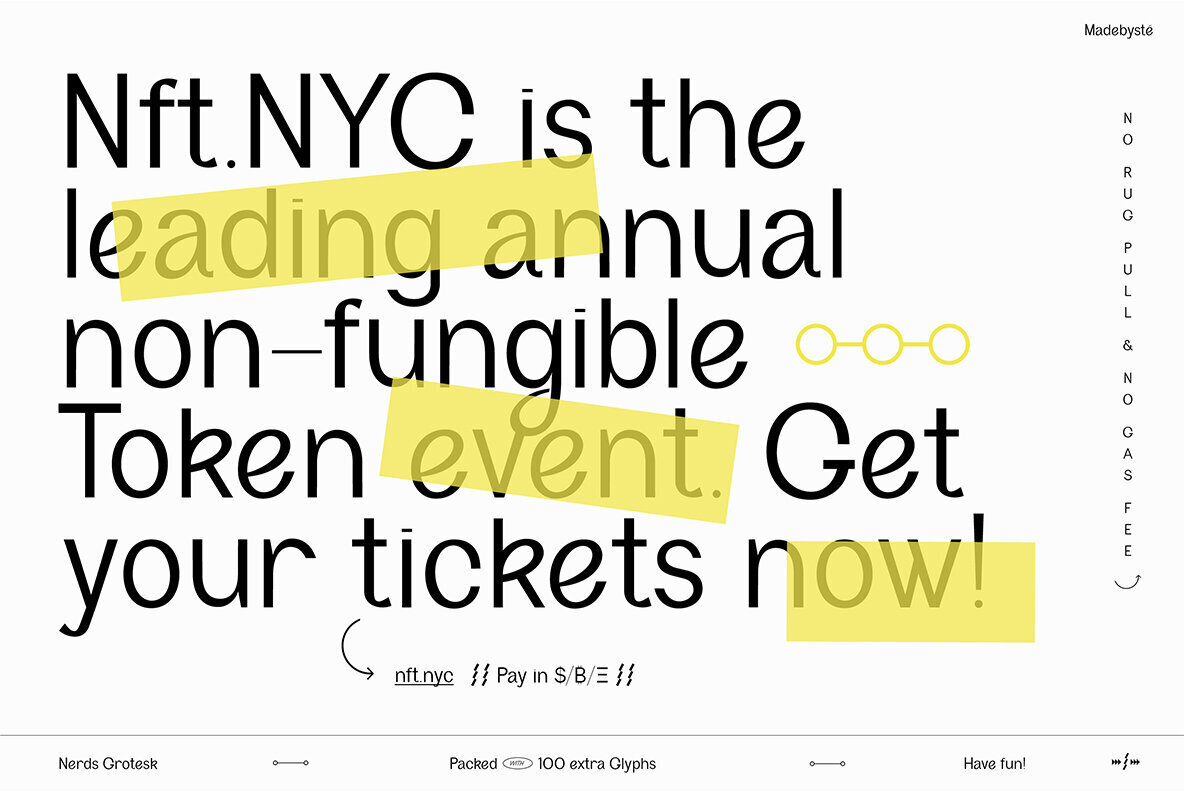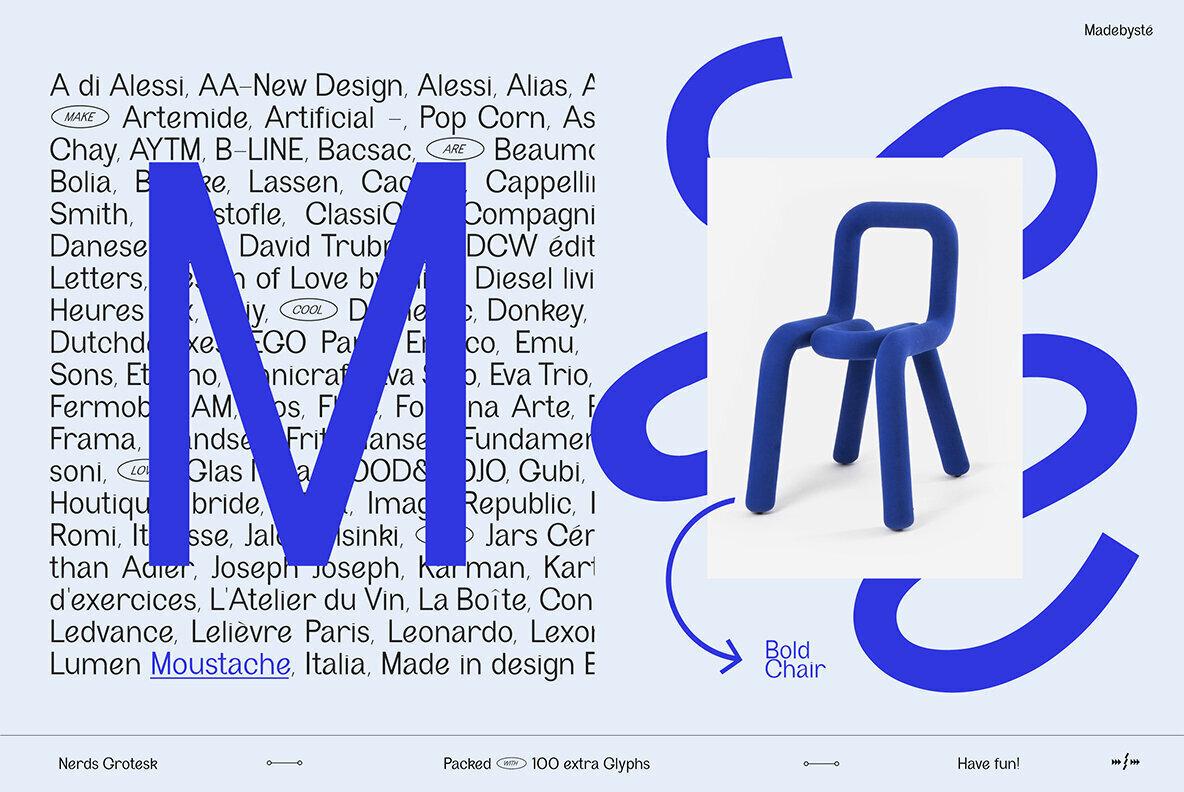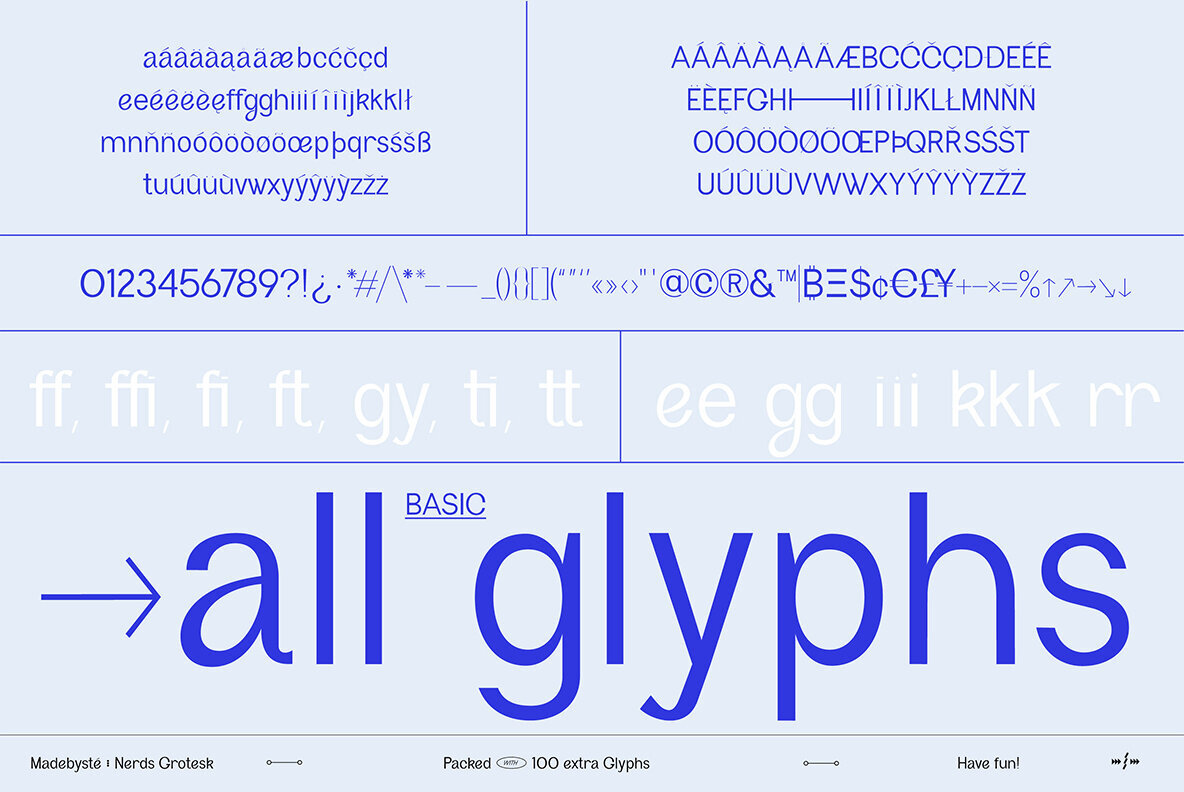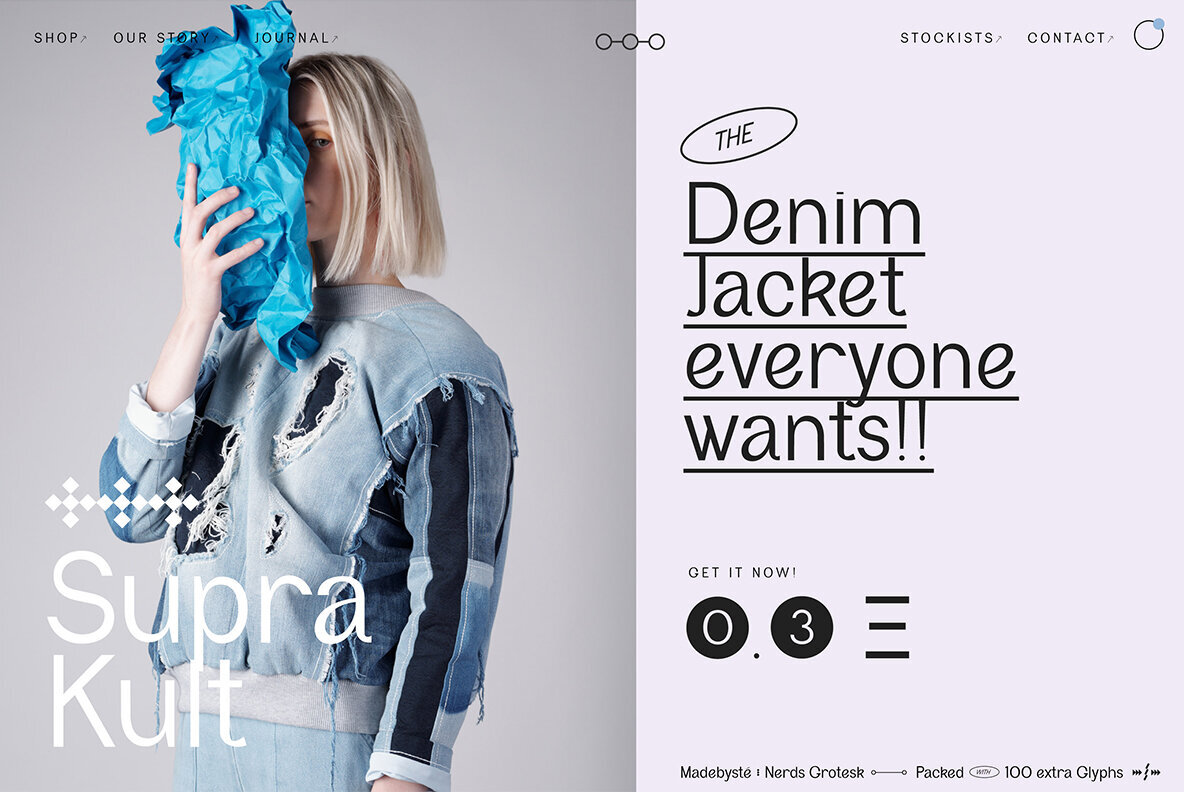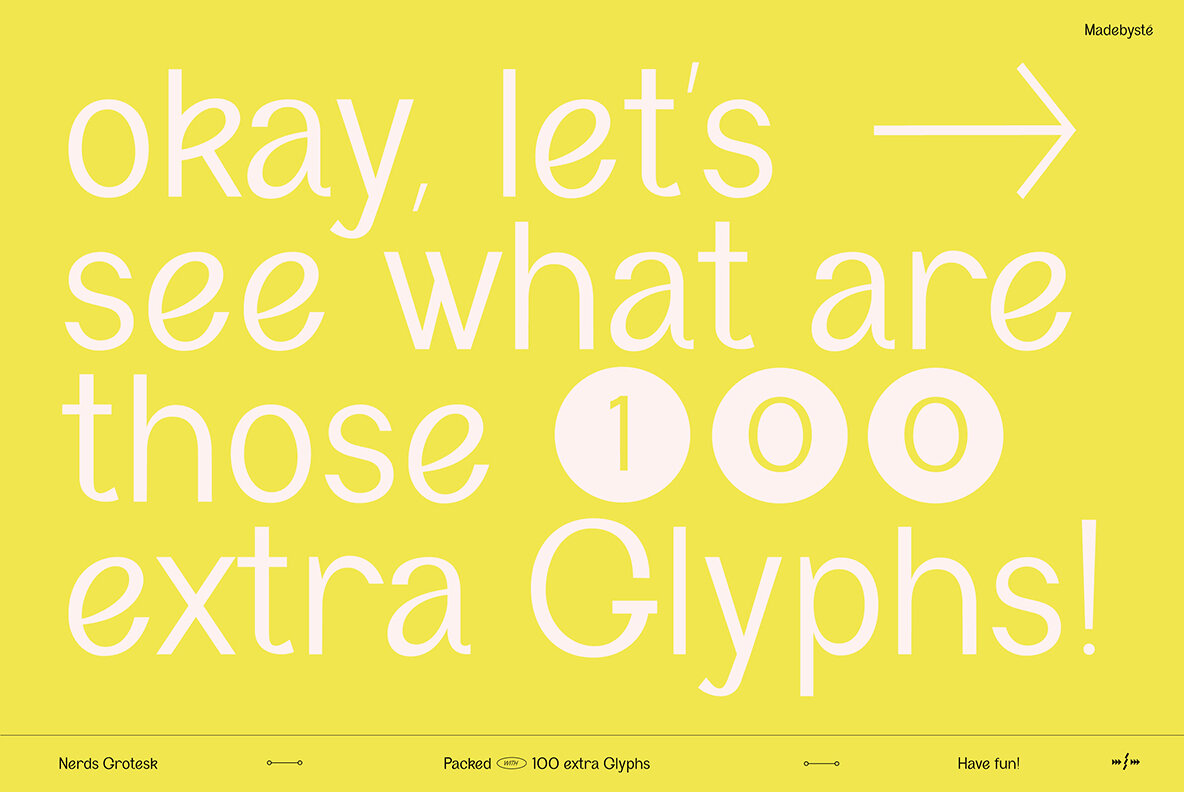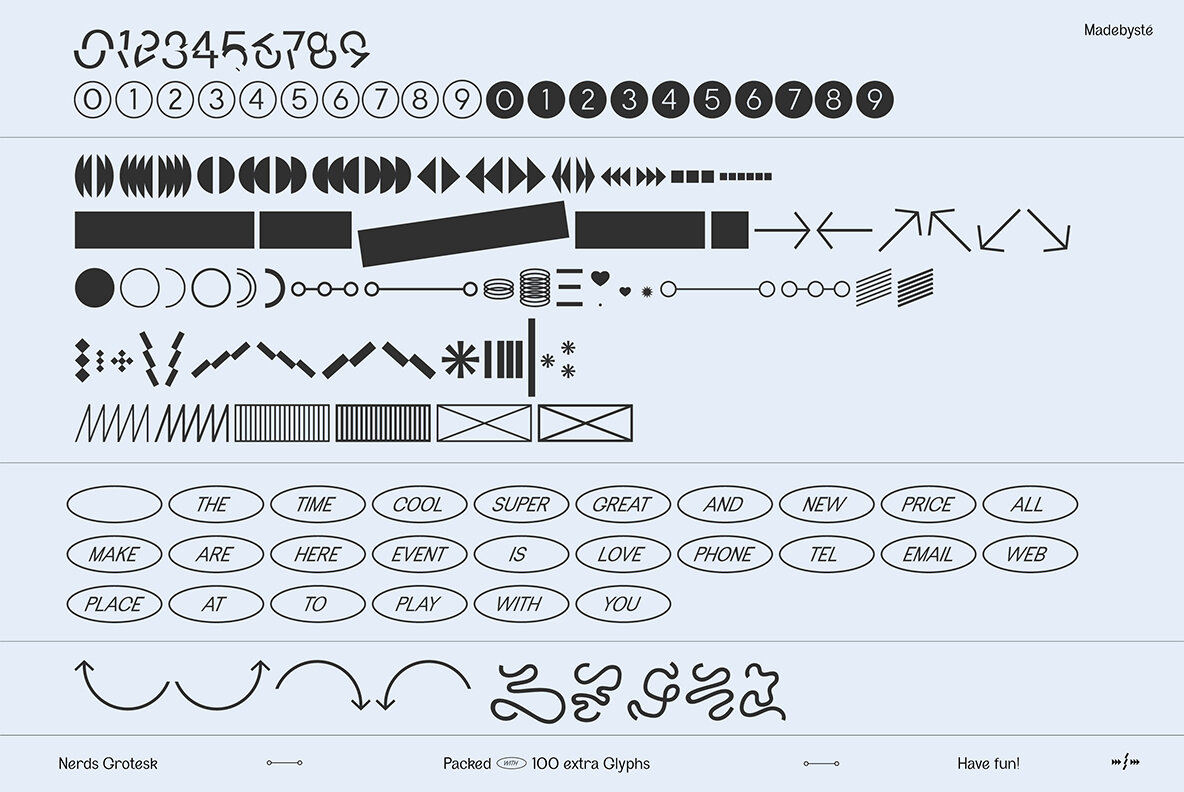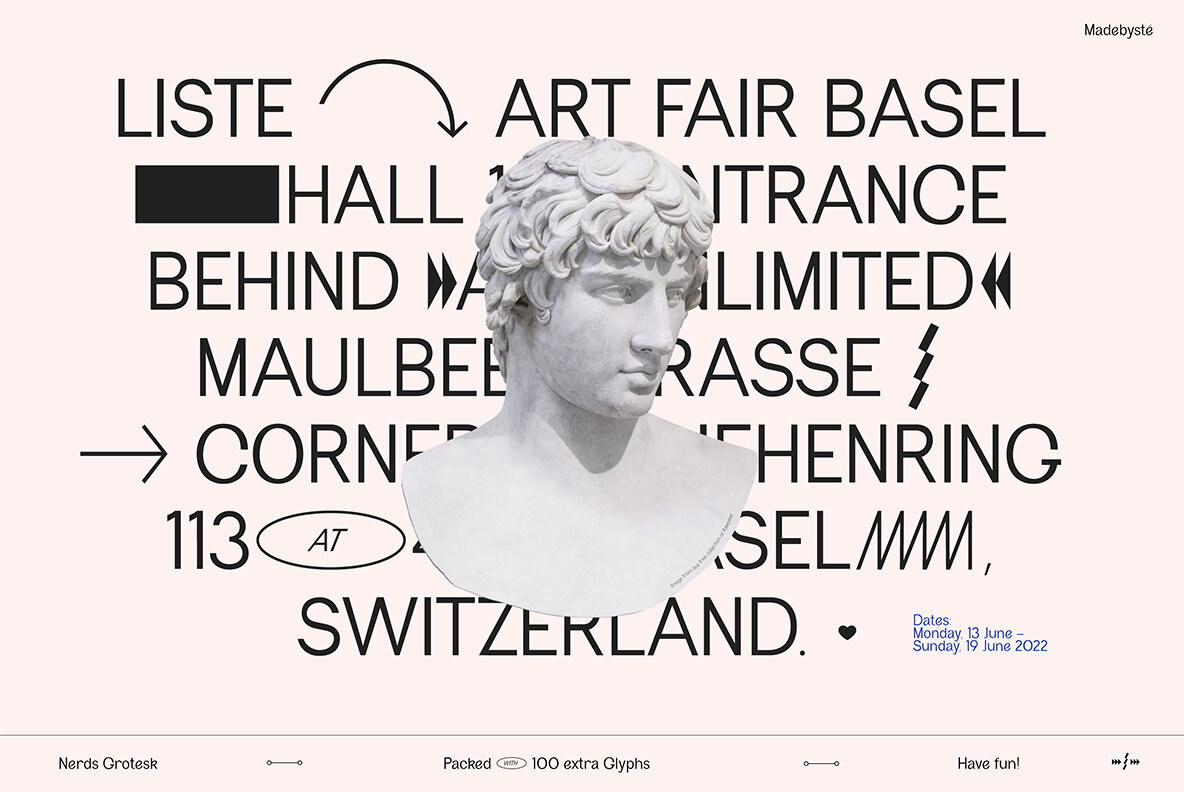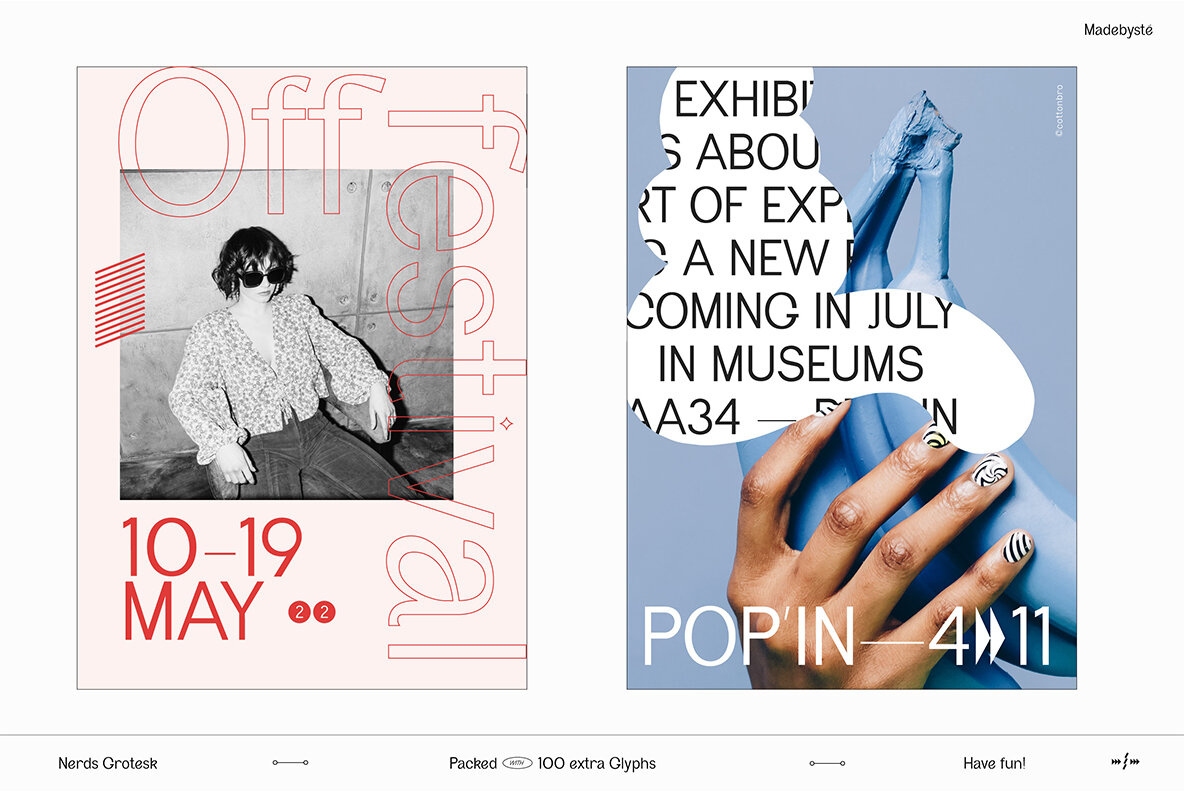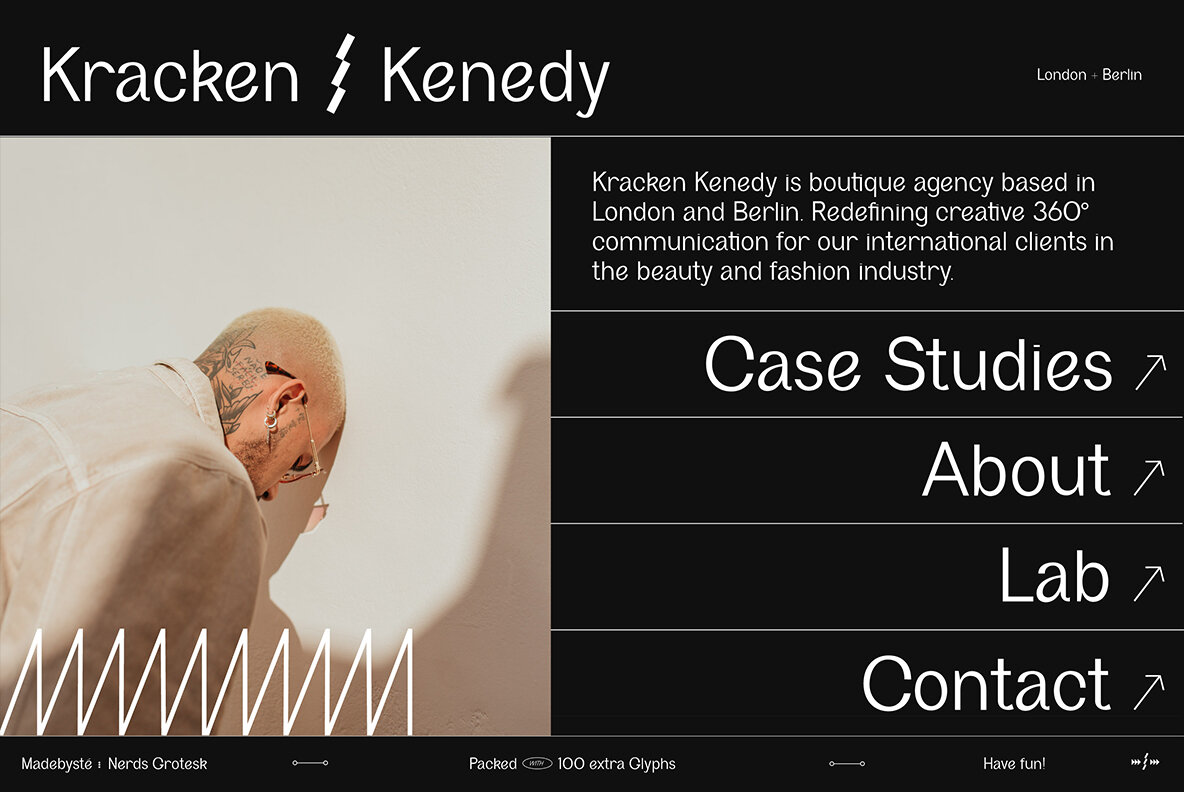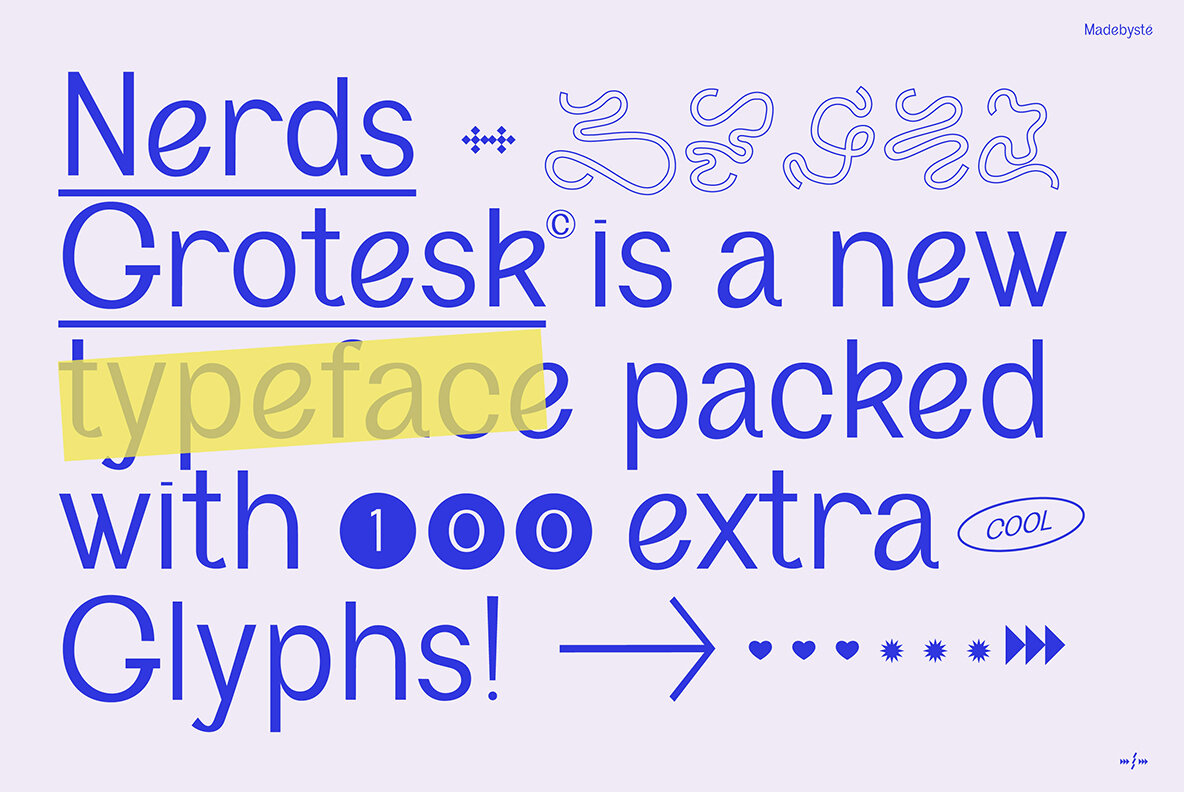
Nerds Grotesk Font
Nerds Grotesk Regular
Nerds Grotesk is a modern sans serif packed with lots of graphic Glyphs. Play with 100 extra Glyphs to create cool posters, graphic works, logos and much more. This font is very legible in all sizes. It's ideal for editorial design, creative branding, prints, web design.